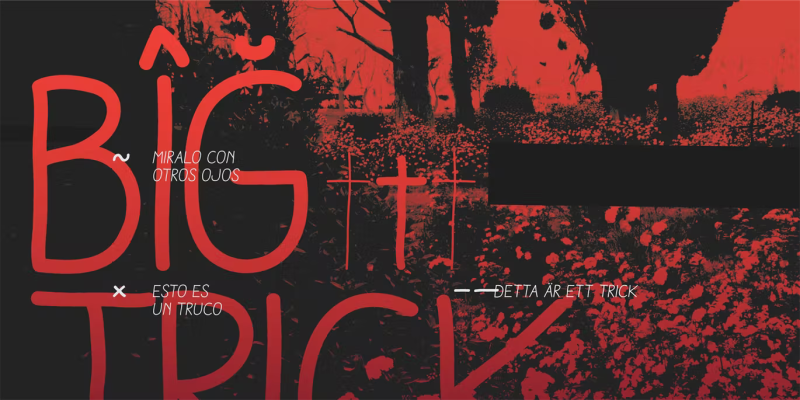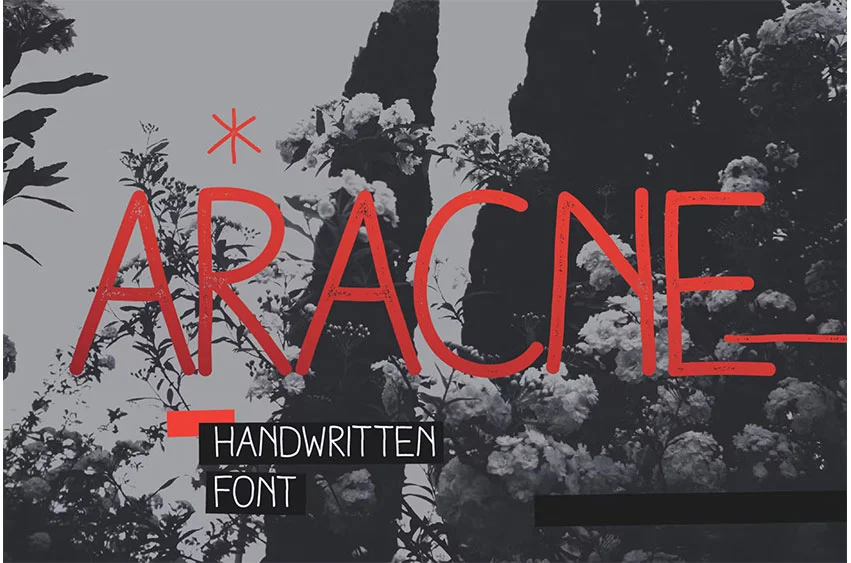
Aracne Font
Aracne Font collection features tall, slightly scrawled letterforms, and is available in regular, condensed, and ultra condensed styles for maximum functionality. With a spirited quality and casual character, it will add a personal style to your work.
Aracne was created as an extended version of the, a regular full of energy handwritten font, with light and regular styles, including italics. It provides a wide range of possibilities, including the Aracne Soft and Stamp, which offer softer and cleaner edges. Its glyph coverage supports languages such as English, Spanish, French, German, Polish, and Czech, among many others. Its recommended usage is for display titles, and a small amount of text, because of its good legibility and quality of glyphs.
Check out her sisters Aracne Condensed and Aracne Ultra Condensed!
Where Aracne Font works best
Aracne Font brings a personal, handwritten warmth to invitations, menus and place cards.
Craft brands — coffee, cosmetics, bakery — use scripts like Aracne Font for signature-style logos and labels.
Pair Aracne Font with a plain sans for quotes, stories and Pinterest pins that feel handmade.
What is Aracne Font good for?